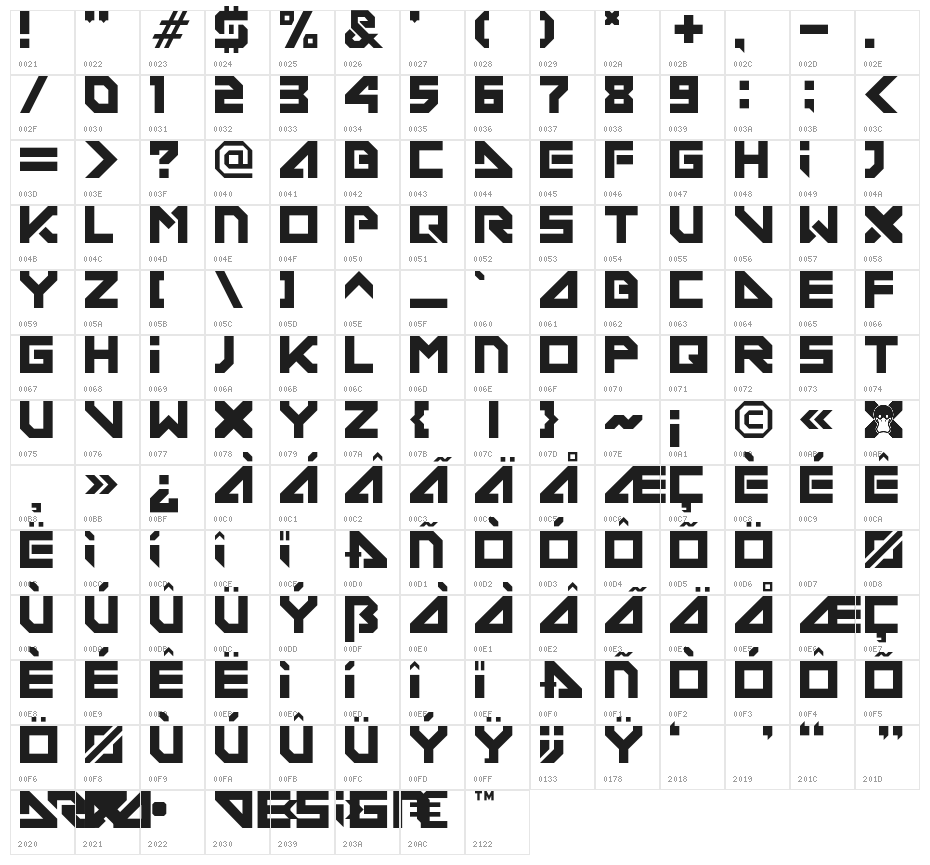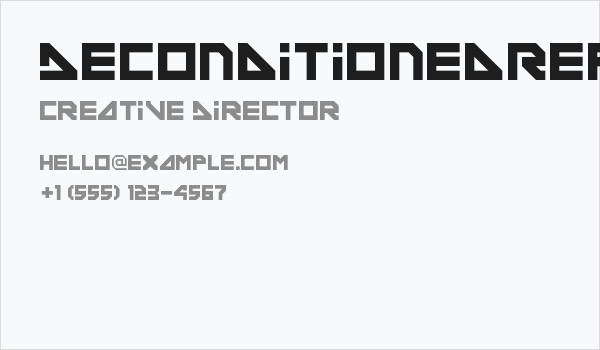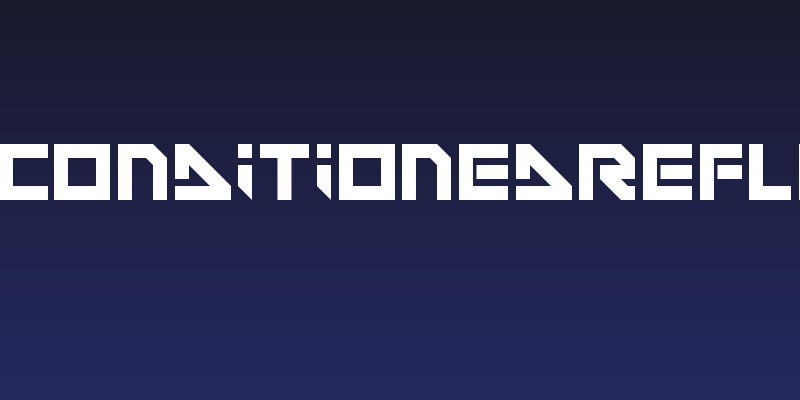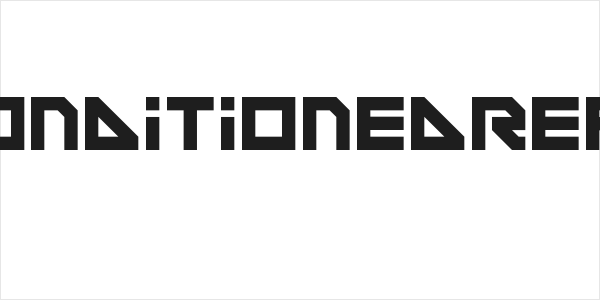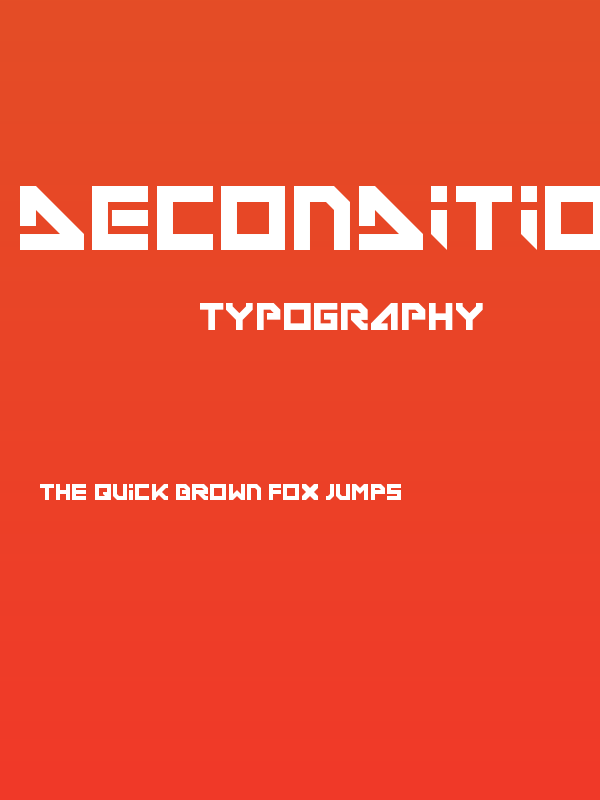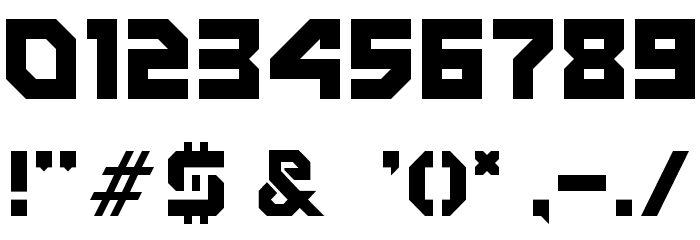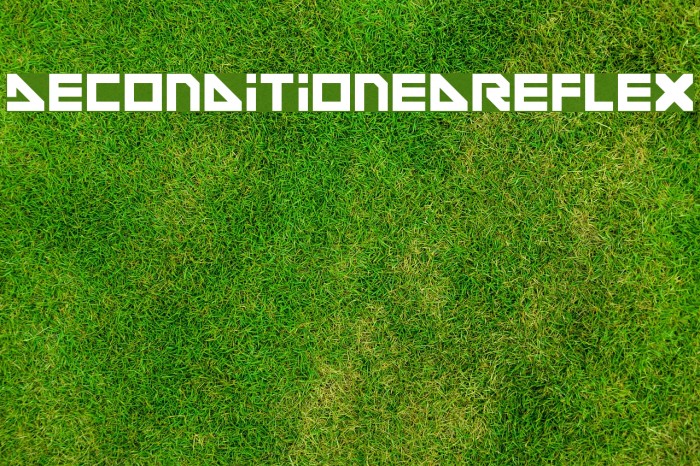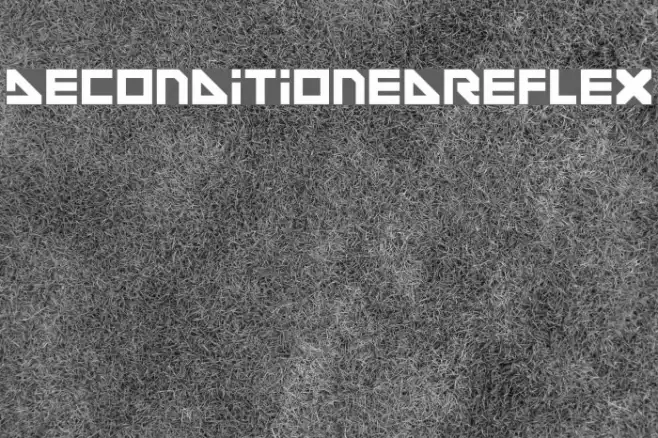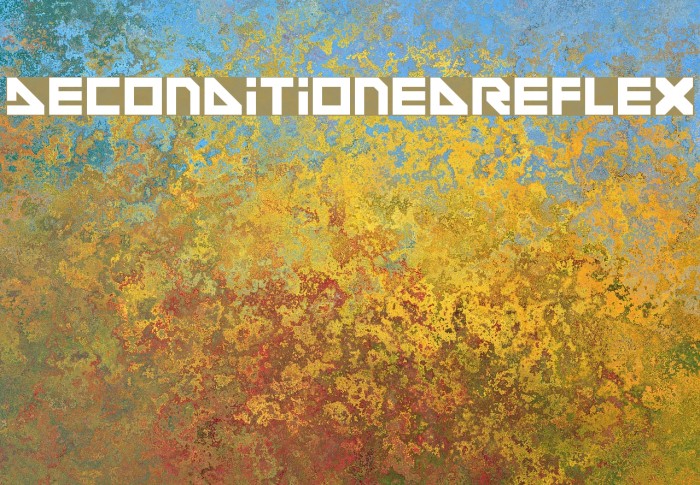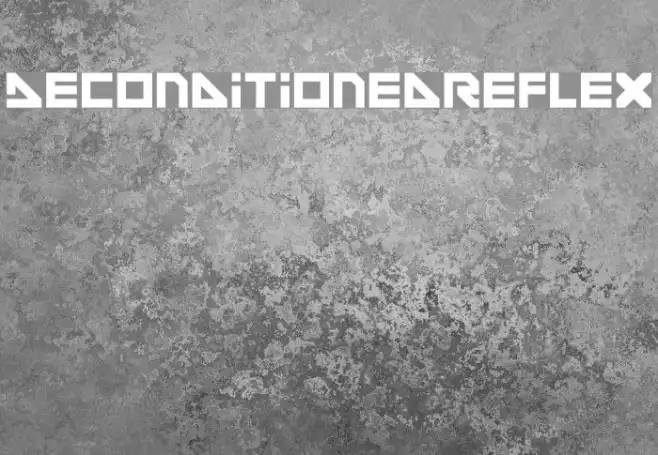
DeconditionedReflex Font
DeconditionedReflex Description
This font features a bold, geometric design with sharp angles and a futuristic aesthetic. The characters are constructed with thick, uniform strokes, creating a strong visual impact. The uppercase and lowercase letters share a consistent style, with distinct angular cuts that give the font a unique, edgy appearance. The numerals and special characters maintain this cohesive design, ensuring versatility across various applications. The font's boldness and geometric nature make it ideal for projects that require a modern and assertive look.
| Proposed Projects | Ideal for technology branding, sci-fi posters, video game titles, and modern logos. |